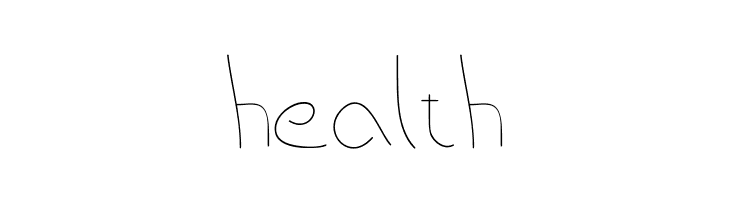
Hontary Font
Font by Akhmad Reza Fauzi
A bold, flowing script font with a lively, handwritten style.
North Roksy Demo Font
A bold, flowing script font with a dynamic, handwritten style.
Panorama Font
A bold, handwritten font with a playful and casual style.
Punizione Font
Font by Akhmad Reza Fauzi
A bold, rounded font with a modern and friendly appearance.
Beloved Girl Font
Font by Akhmad Afandhi
A playful, hand-drawn font with bold, rounded characters.
King Arrow Font
Font by Akhmad Mujayyid
A playful font with arrow-themed characters, offering a dynamic and directional style.
Death Squire Font
Font by Akhmad Reza Fauzi
A bold, angular font with a jagged, distressed style.
DCY Oncom Font
A playful, hand-drawn font with thin, elongated strokes and a whimsical style.
Punizione Stamp Font
Font by Akhmad Reza Fauzi
A bold, distressed font with a vintage, textured appearance.
Basketball Font
A bold, playful handwritten font with a dynamic and energetic style.
Total Millenial Font
A modern, rounded font with a futuristic and digital aesthetic.